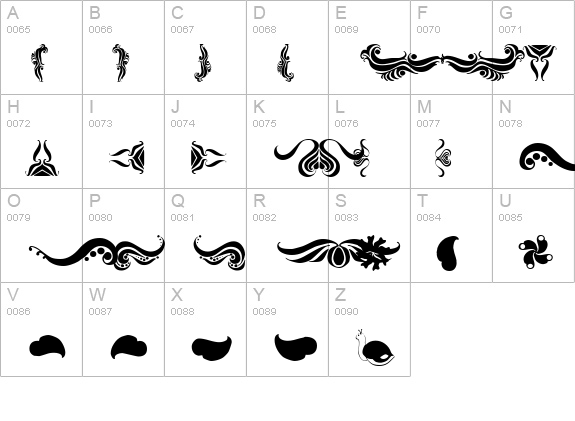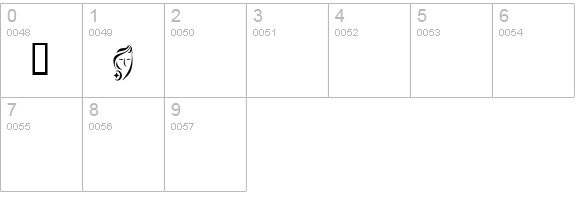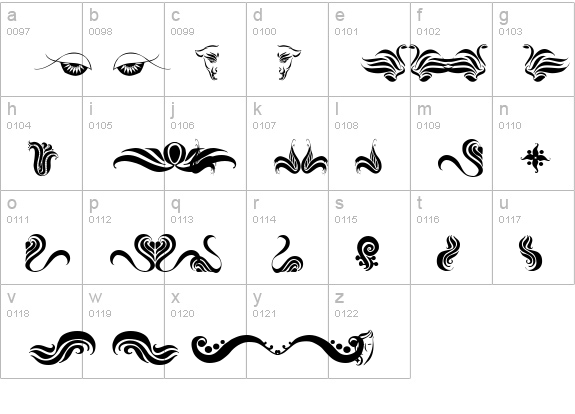
Absinth Flourishes I font is a stunning and elegant typeface that exudes a sense of sophistication and luxury. Its intricate flourishes and decorative elements add a touch of whimsy and charm to any design project. This font is perfect for creating eye-catching invitations, greeting cards, posters, and more. What makes Absinth Flourishes I font even more appealing is that it is completely free to download at FontsMarket.com. You can easily access this exquisite font and elevate your projects with its unique and stylish flair. Whether you are a graphic designer, artist, or enthusiast looking to enhance your creations, Absinth Flourishes I font is a must-have in your font collection. Download it today and let your creativity flourish!